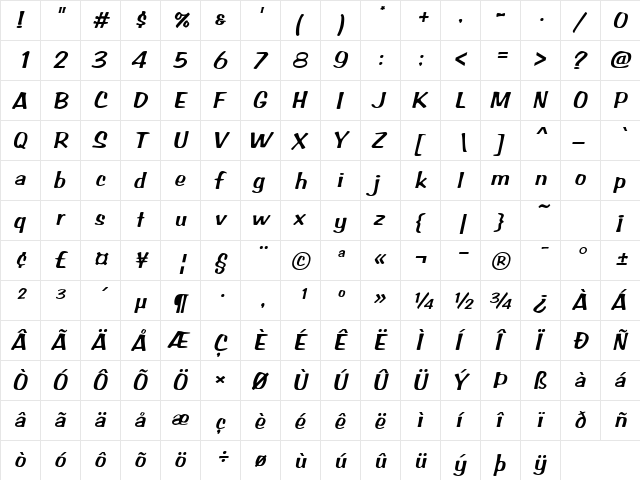
BRADDON Italic
Design Context for BRADDON Typeface
BRADDON is a composed and adaptable typeface that performs quietly and consistently across a wide range of design contexts. The slanted form adds forward momentum and visual energy.
Pro Tip: Use BRADDON for emphasis, pull quotes, and subheadings where its slanted energy can add rhythm to the layout.